Are you a fan of Marvel’s Wolverine? Have you wondered what font they used for the Wolverine logo? No worries, we’ve got you covered. The font used in the Wolverine logo is an exclusive property of Marvel for use in their posters and merchandise and isn’t available to the public. Therefore, you won’t find it on the Internet. However, after some research and following the forums, we found three Wolverine fonts for you! Bank Gothic Bold font, Wolf’s Bane 2 Bold font, and Wolverine Pseudo are fonts that are very similar to or were inspired by the Wolverine logo font! Let’s find out more about them and how to download them for free now!
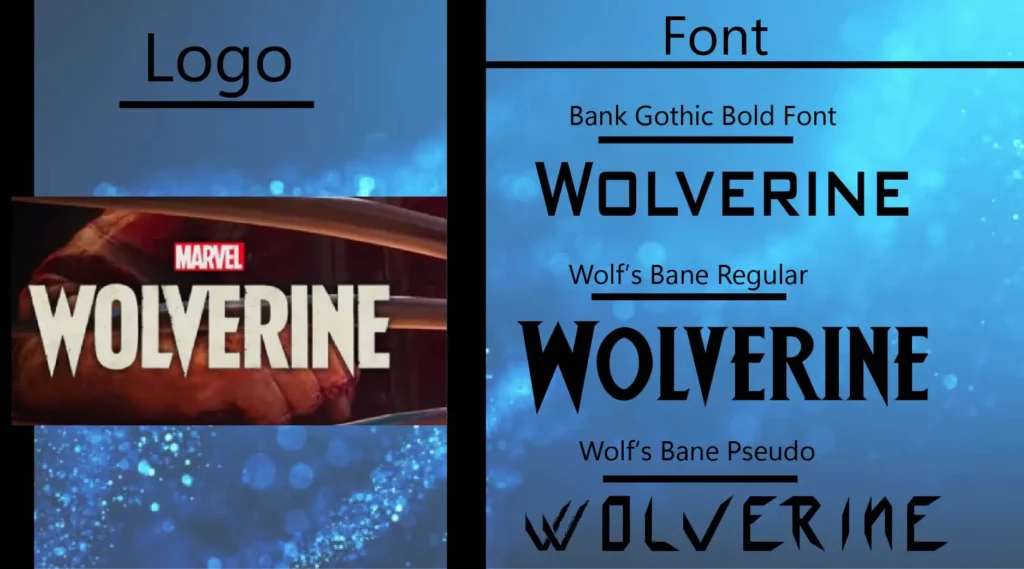
Now let’s talk about those fonts!
Bank Gothic Bold font
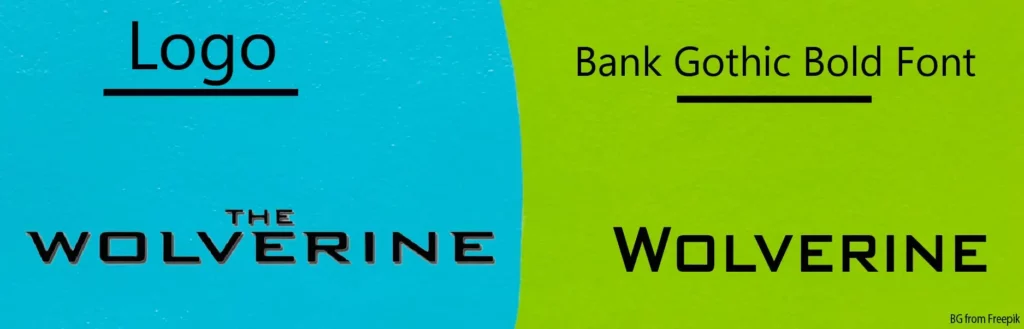
Bank Gothic Bold, as the name implies, is a Gothic Bold font inspired by the Wolverine logo. Specifically, the 2013 film “The Wolverine” and has nearly identical lettering and shape. You can say they look almost identical. This font has only uppercase with some special characters. If you’re planning a poster, an invitation, or any other design project, then this is the one for you! So, click on the link below to download it for free.
Wolf’s Bane 2 Bold font
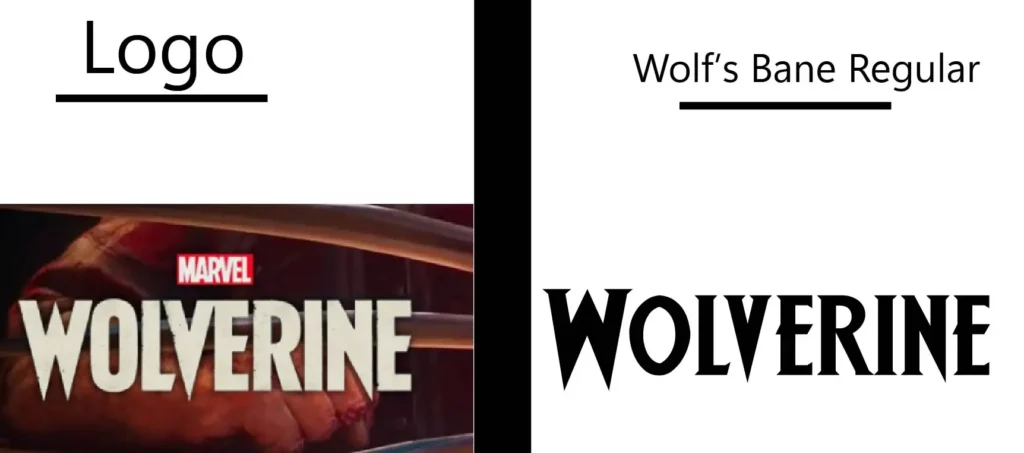
Wolf’s Bane 2 Bold font is another Wolverine logo-inspired font. Designed by Daniel Zadorozny and published by Iconian Studio, this font is a much-improved version of their earlier version. It is similar to the font used in the upcoming Marvel’s Wolverine game. It can be seen how the letters look very similar in shape and size. If you are looking for a gaming font, this is the font for you! You can also incorporate this font into any other design projects you want! And this is a free font. So download it now from the link below!
Wolverine Pseudo
Wolverine Pseudo is one of many fonts inspired by the fierce and iconic Wolverine, particularly his signature Adamantium claws. Just like the sharp edges and intimidating presence of Wolverine’s claws, this font boasts bold lines and jagged edges that give it a strong, menacing look. The letters appear as though they could claw their way off the page. If you’re looking for a font that embodies the strength and ferocity of Wolverine, this one might just be a perfect match.
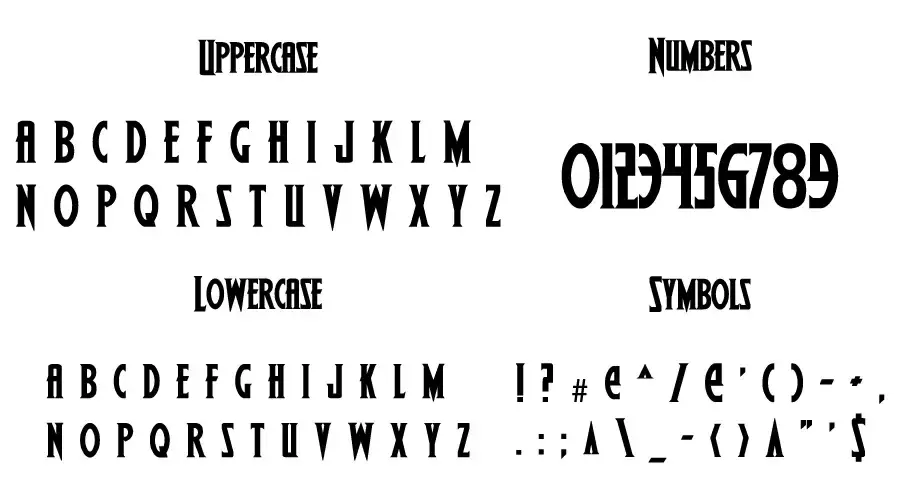
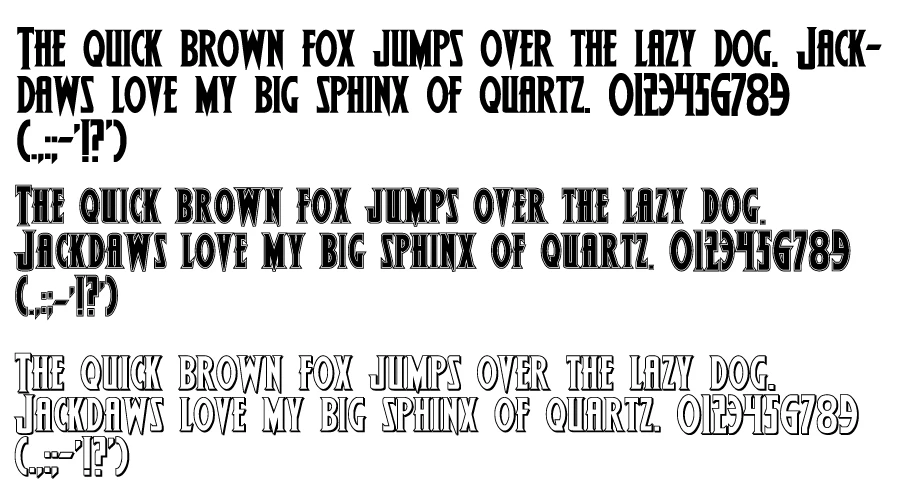
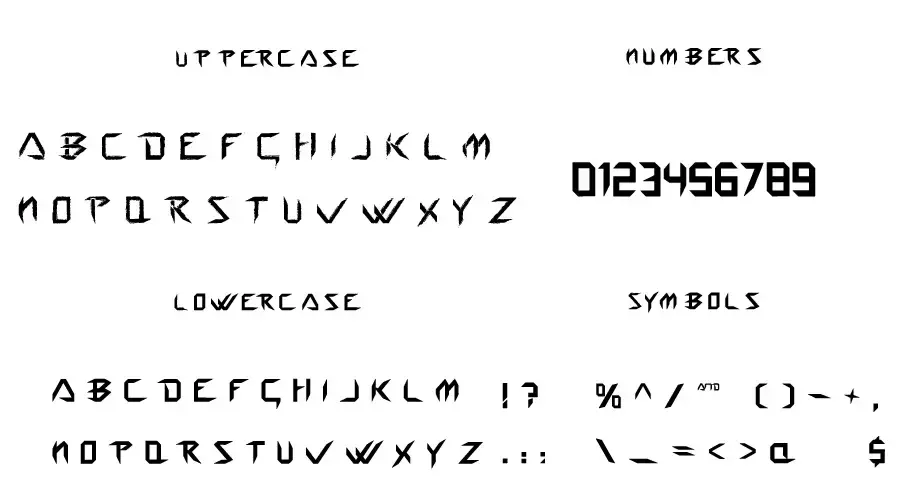
In conclusion,
Wolverine is a beloved and iconic character in the Marvel Universe, known for his unique abilities, complex backstory, and enduring popularity among fans. While the font used in the Wolverine logo is exclusive to Marvel, we have discovered three similar fonts that are available for free download. These fonts are inspired by the Wolverine logo and are perfect for use in design projects, such as posters or invitations, or for gaming purposes. Whether you’re a fan of Wolverine or just looking for a bold and fierce font, these three options are sure to satisfy.
How has Wolverine been portrayed in movies and TV shows?
Are there any fonts similar to the Wolverine logo font?
Ans: Yes, there are three fonts similar to or inspired by the Wolverine logo font: Bank Gothic Bold font, Wolf’s Bane 2 Bold font, and Wolverine Pseudo. These fonts can be downloaded for free.